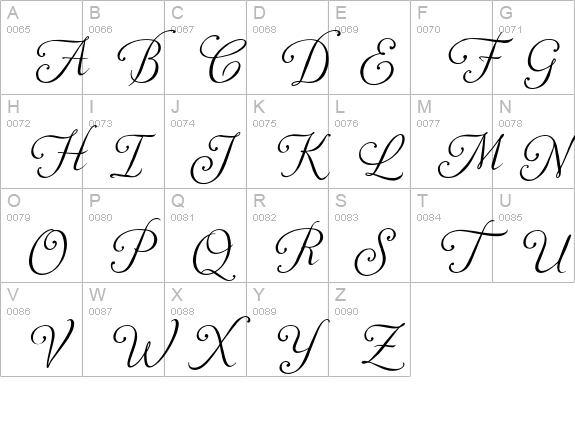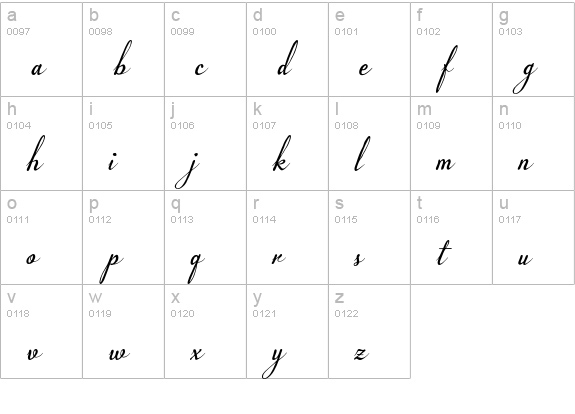
Plebeya Swash Caps font exudes elegance and sophistication with its unique blend of classic and modern design elements. The delicate swashes and refined curves of this typeface add a touch of luxury to any project, making it perfect for high-end branding, invitations, and editorial designs. This font's graceful letterforms and exquisite detailing are sure to captivate your audience and elevate your work to new heights. Whether you're looking to add a touch of old-world charm or a contemporary flair, Plebeya Swash Caps font is the perfect choice to make a statement. Best of all, Plebeya Swash Caps font is freely available to download at FontsMarket.com, allowing you to bring a touch of sophistication to your projects without breaking the bank. Don't miss out on this exquisite font that will surely impress and inspire.